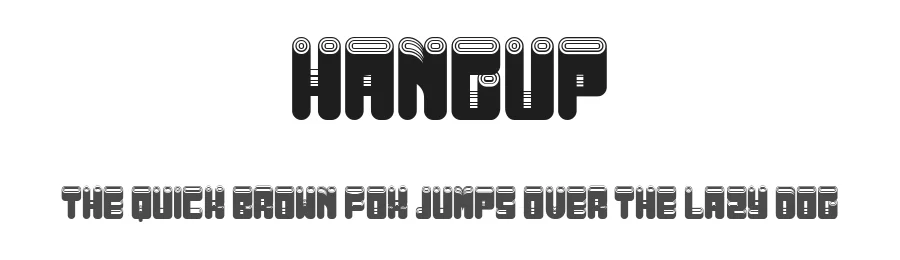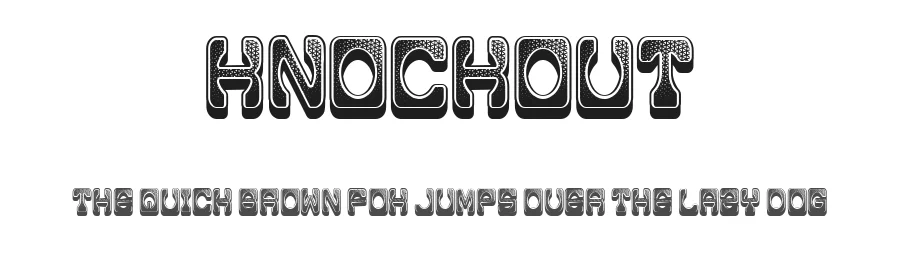
About Retro Disco Font
Retro Disco Specifications
| Designer | Dharmas Studio |
Retro Disco supports 89 languages.
Retro Disco Font is a decorative font that shines as a display or heading face. Pair it with a clean sans-serif or serif font for body text β the contrast creates a clear hierarchy while the two styles stay balanced and easy to read.